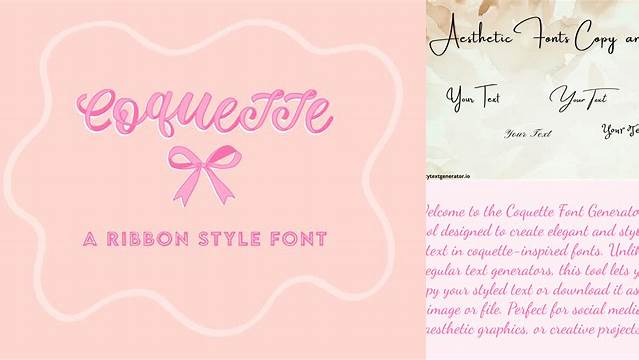
Coquette Fonts: Copy & Paste Symbols For Aesthetic Designs
Hey guys! Ever stumbled upon those super cute, almost dreamy designs and wondered how they achieve that coquette aesthetic? A big part of it is the fonts and the adorable symbols they use! And guess what? You don't need to be a design guru to create your own. This article is all about diving into the world of coquette fonts and symbols, showing you how to copy and paste them to sprinkle some magic on your projects. Let’s get started!
What are Coquette Fonts?
Okay, so what exactly are coquette fonts? Think delicate, feminine, and a little bit vintage. They often have a handwritten feel, with swashes and curls that add a touch of elegance and whimsy. Coquette fonts are all about creating a soft, romantic vibe. These fonts usually include symbols to enhance the design and make it even more unique. When choosing a coquette font, consider its readability and how well it fits with the overall design. A good coquette font should be both beautiful and functional. These fonts are often used in branding, invitations, and social media graphics to convey a sense of charm and sophistication. So, next time you're looking for a font that exudes grace and femininity, remember the term coquette fonts. You’ll find a plethora of options that can bring your designs to life, making them more appealing and memorable.
Finding Coquette Aesthetic Symbols
Now, where do you find these adorable coquette aesthetic symbols? The internet is your best friend! There are tons of websites and online tools that offer a wide variety of symbols you can easily copy and paste. Think hearts, stars, flowers, ribbons, and other cute little embellishments. These symbols are perfect for adding that extra touch of coquettish charm to your designs. When searching for coquette aesthetic symbols, try using specific keywords like "cute symbols," "aesthetic symbols," or "kawaii symbols" to narrow down your results. Don't be afraid to explore different websites and platforms to discover hidden gems. Remember to check the licensing terms of the symbols to ensure you're using them legally, especially for commercial projects. By incorporating these symbols, you can elevate your designs and create a truly unique and eye-catching aesthetic. So go ahead, dive into the world of coquette aesthetic symbols and let your creativity shine!
Copy and Paste: The Easy Way to Coquette
The beauty of coquette fonts and symbols is that you don’t need fancy software to use them. Copy and paste is your secret weapon! Find the font or symbol you love, select it, copy it, and then paste it into your document, social media post, or design project. It's that simple! Make sure the platform you're pasting into supports the font or symbol. Sometimes, you might need to adjust the size or color to get the perfect look. Also, experiment with different combinations of fonts and symbols to create unique and eye-catching designs. The key is to have fun and let your creativity flow. With the copy and paste method, you can easily add a touch of coquette charm to any project, no matter your skill level. So, embrace the simplicity of copy and paste and start creating beautiful, coquette-inspired designs today!
Implementing Coquette Fonts in Graphic Design
When it comes to graphic design, implementing coquette fonts can significantly enhance the visual appeal and convey a sense of elegance and charm. Coquette fonts are characterized by their delicate curves, swashes, and ornate details, making them perfect for projects that aim to evoke femininity and sophistication. Whether you're designing wedding invitations, branding materials, or social media graphics, coquette fonts can add a touch of romance and whimsy to your creations. To effectively implement coquette fonts, consider the overall design context. Choose a font that complements the other elements in your design, such as colors, images, and layout. Pay attention to the font's readability, especially when using it for body text. You can also use coquette fonts sparingly, highlighting key words or phrases to draw attention. Experiment with different font sizes and weights to achieve the desired effect. By thoughtfully implementing coquette fonts, you can create visually stunning designs that captivate your audience and leave a lasting impression. So, go ahead and incorporate these fonts into your next graphic design project and watch your creations come to life.
Using Coquette Symbols in Social Media
Using coquette symbols in social media is a fantastic way to add personality and flair to your posts. These symbols, ranging from hearts and stars to flowers and ribbons, can make your content more engaging and visually appealing. When using coquette symbols in social media, consider your target audience and the overall tone of your brand. Choose symbols that align with your brand's aesthetic and resonate with your followers. You can use these symbols to decorate your captions, highlight important information, or simply add a touch of charm to your posts. Experiment with different combinations and placements to see what works best. Also, be mindful of overusing symbols, as too many can make your content look cluttered and overwhelming. A few well-placed coquette symbols can go a long way in enhancing your social media presence. So, start using coquette symbols in your social media posts and watch your engagement soar!
Coquette Fonts for Different Platforms
Understanding which coquette fonts work best for different platforms is crucial for maintaining consistency in your branding. While some fonts render beautifully on one platform, they may appear distorted or unreadable on another. When choosing coquette fonts for different platforms, consider factors such as font compatibility, readability, and overall aesthetic. For websites, opt for web-safe fonts that are widely supported across different browsers and operating systems. For social media, you can be a bit more adventurous with your font choices, but always prioritize readability on mobile devices. Also, keep in mind that some platforms have limitations on the types of fonts you can use. If you're unsure, it's always best to test your fonts on different platforms to ensure they look their best. By carefully selecting coquette fonts for different platforms, you can create a cohesive and visually appealing brand presence that resonates with your audience.
Creating a Coquette Aesthetic with Fonts
Creating a coquette aesthetic with fonts is all about embracing femininity, elegance, and a touch of whimsy. The right font can set the tone for your entire design, conveying a sense of charm and sophistication. When creating a coquette aesthetic with fonts, look for options that feature delicate curves, swashes, and ornate details. Handwritten fonts can also work well, adding a personal and intimate feel to your creations. Experiment with different font pairings to find a combination that complements your overall design. Use fonts sparingly, highlighting key words or phrases to draw attention. Also, consider the color and size of your fonts, as these factors can significantly impact the overall aesthetic. By thoughtfully creating a coquette aesthetic with fonts, you can transform your designs into visually stunning masterpieces that captivate your audience.
Where to Find Free Coquette Fonts
Finding free coquette fonts can be a treasure hunt, but it’s definitely possible! There are numerous websites and online resources that offer a wide selection of free fonts for personal and commercial use. When searching for free coquette fonts, be sure to check the licensing terms to ensure you're using them legally. Some fonts may require attribution, while others may be free for any purpose. Explore websites like Google Fonts, DaFont, and Fontspace to discover a variety of coquette fonts that suit your needs. You can also find free font bundles and giveaways on social media and design blogs. Remember to download fonts from reputable sources to avoid malware or other security risks. With a little bit of research, you can find a plethora of free coquette fonts that will elevate your designs without breaking the bank.
Pairing Coquette Fonts with Other Fonts
Pairing coquette fonts with other fonts is an art in itself. The right combination can create a visually stunning and harmonious design, while the wrong pairing can clash and detract from your overall aesthetic. When pairing coquette fonts with other fonts, consider the principles of contrast and balance. Choose a secondary font that complements the coquette font without overpowering it. Sans-serif fonts often work well as secondary fonts, providing a clean and modern contrast to the ornate details of coquette fonts. Experiment with different font sizes and weights to create visual hierarchy and draw attention to key elements in your design. Also, pay attention to the overall tone and style of your project. A formal design may require a more traditional font pairing, while a casual design may allow for more experimentation. By thoughtfully pairing coquette fonts with other fonts, you can create visually appealing designs that capture the essence of the coquette aesthetic.
Advanced Coquette Font Techniques
Ready to level up your font game? Let’s dive into some advanced coquette font techniques! First, try experimenting with layering different coquette fonts to create depth and visual interest. Use one font for the main text and another, more decorative font for headings or accents. Another cool technique is to create custom ligatures, those fancy letter combinations that add a touch of elegance. You can also play with different text effects like shadows, gradients, or textures to give your coquette fonts a unique look. Mastering kerning and tracking, the spacing between letters, is essential for achieving a polished, professional result. For extra flair, try incorporating hand-drawn elements or illustrations into your coquette font designs. These advanced coquette font techniques will take your designs from ordinary to extraordinary!